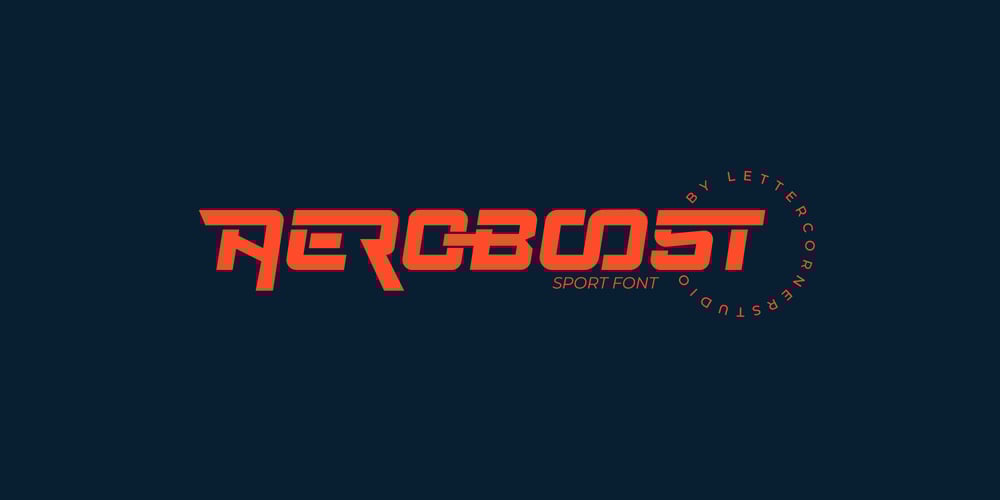
Aeroboost Font Family was designed by Muhammad Afif Ersya and published by Mevstory Studio. Aeroboost contains 1 styles and family package options. Aeroboost is a sporty look with a strong and sporty feel, perfect for your titles, logos, typography, flyers and various design needs, making your designs more modern and professional. Aeroboost comes with these all caps making them look strong and bold, giving them a bold and modern feel, so enjoy creating any project that will showcase your main idea!